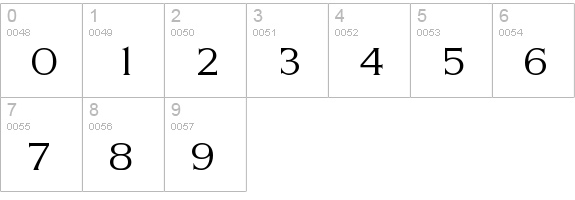
SilveradoLight Font Details
SilveradoLight is a captivating and elegant font that exudes a sense of refinement and sophistication. Its sleek and slender letterforms are imbued with a delicate balance of curves and straight lines, creating a harmonious and eye-catching visual aesthetic. This font is perfect for adding a touch of class to any design project, whether it be for branding, logos, invitations, or headlines. Its timeless appeal and versatile nature make it suitable for a wide range of applications, from luxurious and high-end designs to more minimalist and contemporary styles. One of the most remarkable aspects of SilveradoLight is that it is available for free. Yes, you read that right – this extraordinary font can be freely downloaded at FontsMarket.com. This means that you can easily enhance your creative endeavors without having to spend a penny. The generous availability of SilveradoLight allows designers, artists, and enthusiasts alike to enjoy the benefits of this striking font without any limitations. It empowers individuals to unleash their creativity and bring their visions to life, without the burden of financial constraints. So why wait? Discover the beauty and versatility of SilveradoLight today by visiting FontsMarket.com. Download this exceptional font and let it elevate your designs to new heights of elegance and sophistication. With SilveradoLight, the possibilities are endless, and the best part is – it's free!